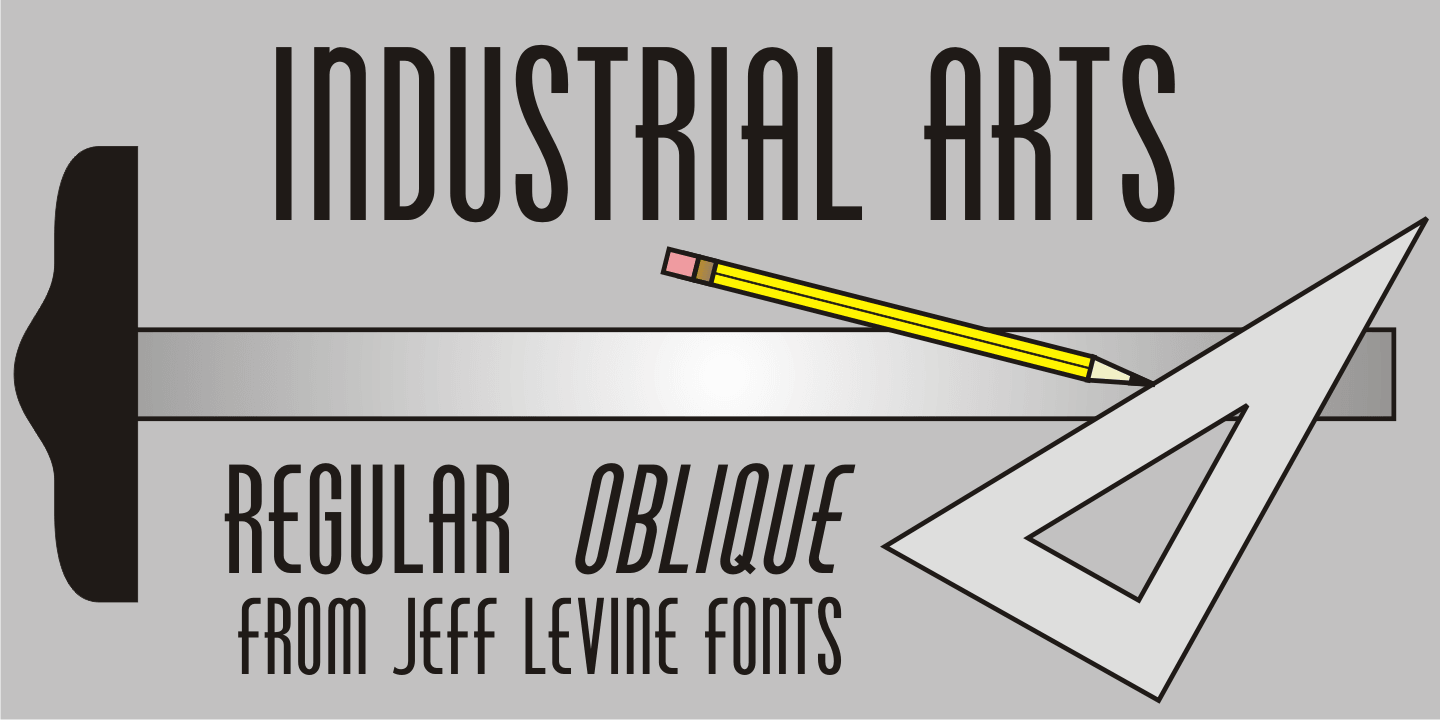
please help me to find this font name
That font is Blippo . . . . . .
The first font looks like ITC Bauhaus® Pro Medium. Here’s the link: https://www.myfonts.com/fonts/itc/bauhaus/pro-medium-177552/
This is curious, QoF: Blippo and Bauhaus are verrrry similar, but Blippo only has a black face, no lighter weights. So this example can’t be Blippo. Except that the cap J in Blippo looks like this one (but heavier), whereas the cap J in Bauhaus doesn’t. In Bauhaus, the lower stroke follows a flatter curve and doesn’t end up with a sharply angled terminal. The other three letters are virtually identical (except for the weight).
Bonjour is Neometric, available at
Bistro & Cafe is Industrial Arts at
I find it odd that Blippo only has one weight, and that being black. And one question: Where did you hear about all the fonts you know, and how did you remember them?